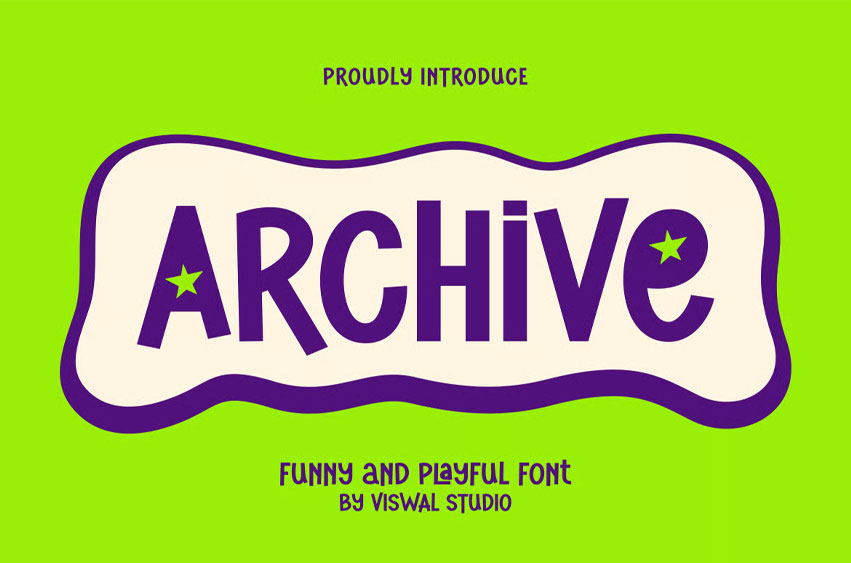
Archive Font
Archive Font Is A Playful & Kids Display Font. Can Make It Easier To Convey The Message In Your Design. Font Is Suitable For Logos, Labels, Badges, Brandings, Magazines, Posters, Titles, Gigs, Covers, etc. Our Fonts Have Uppercase & Lowercase, numerals & Punctuation, and OpenType features.
For Amazing Designs, You Can Mix With Other Fonts As A Complement.